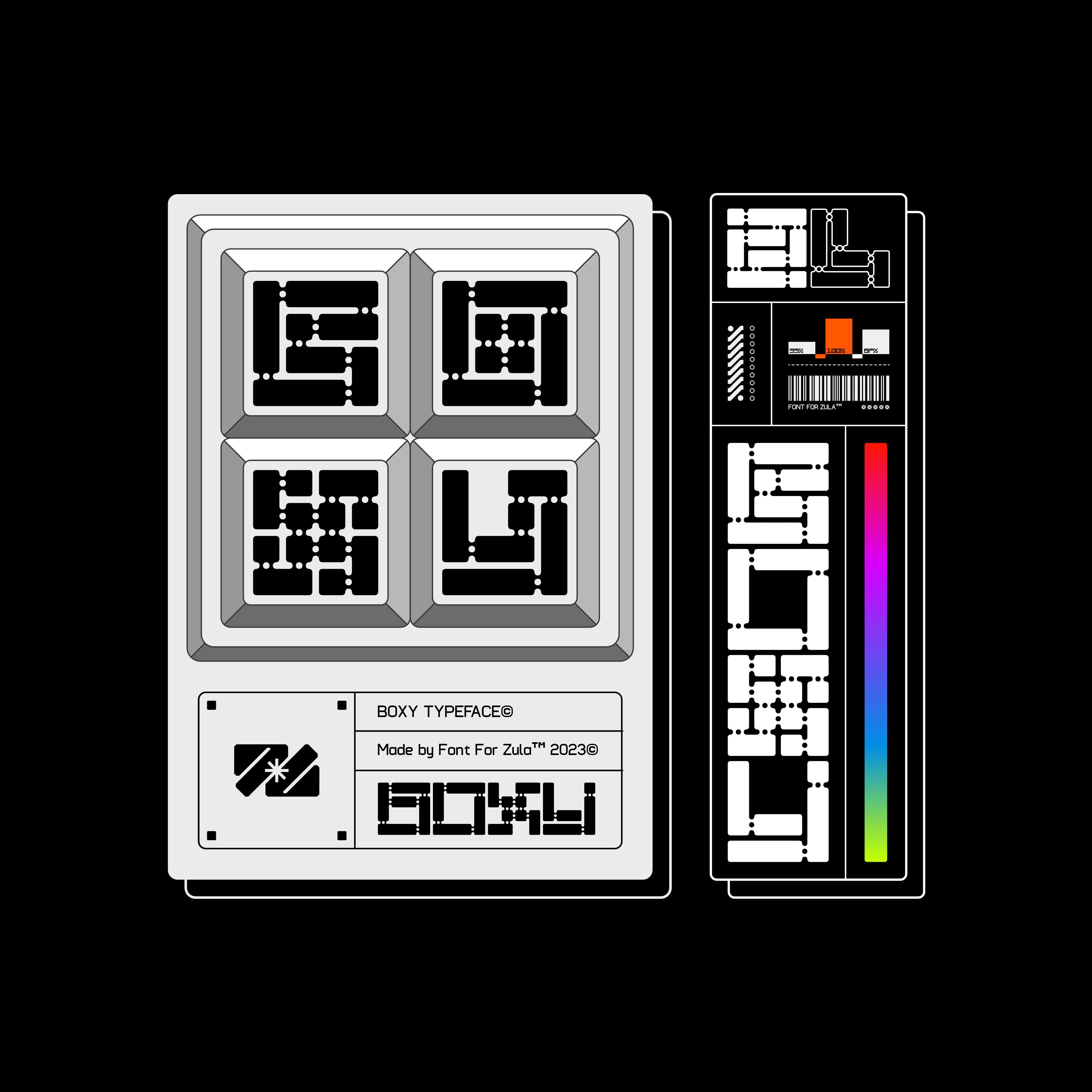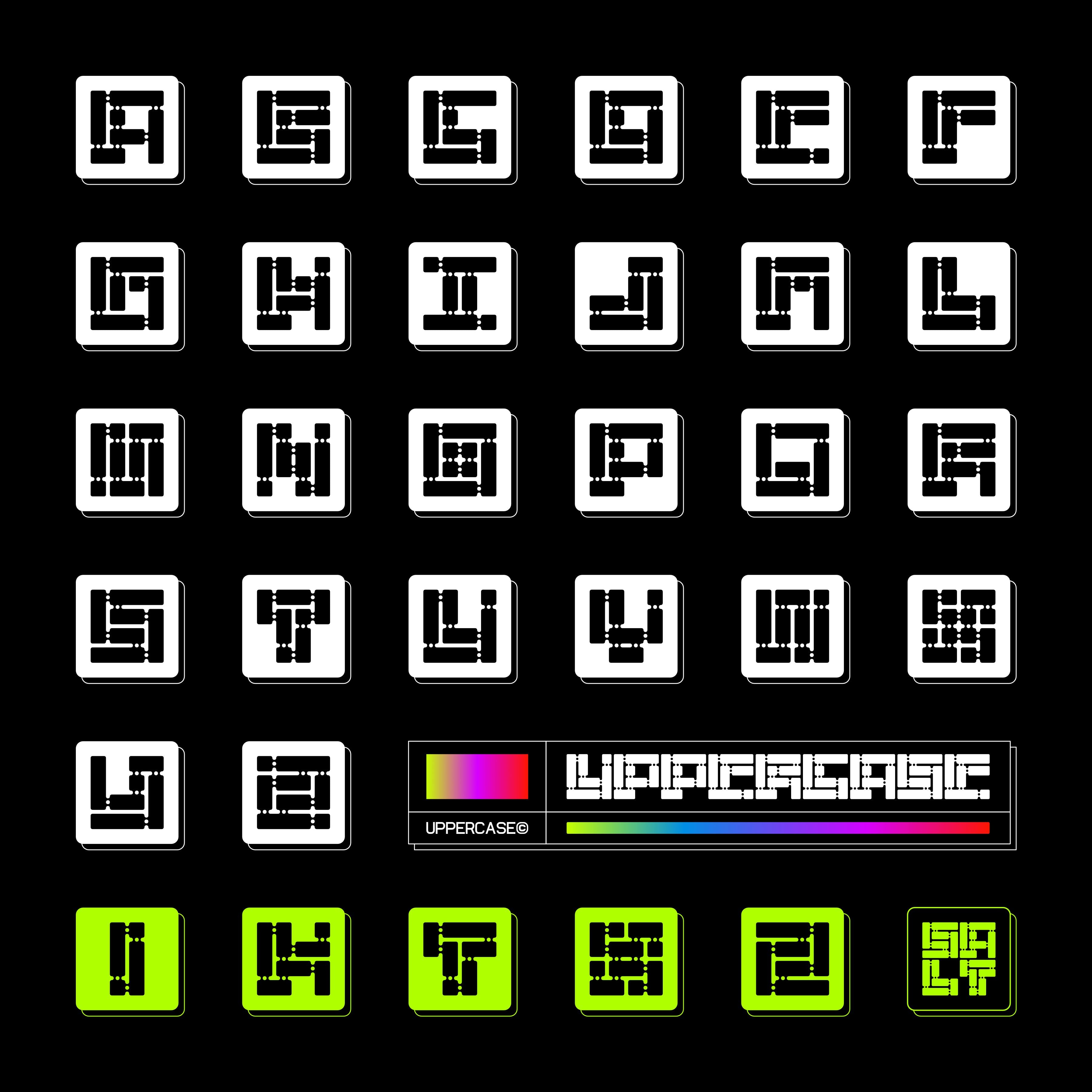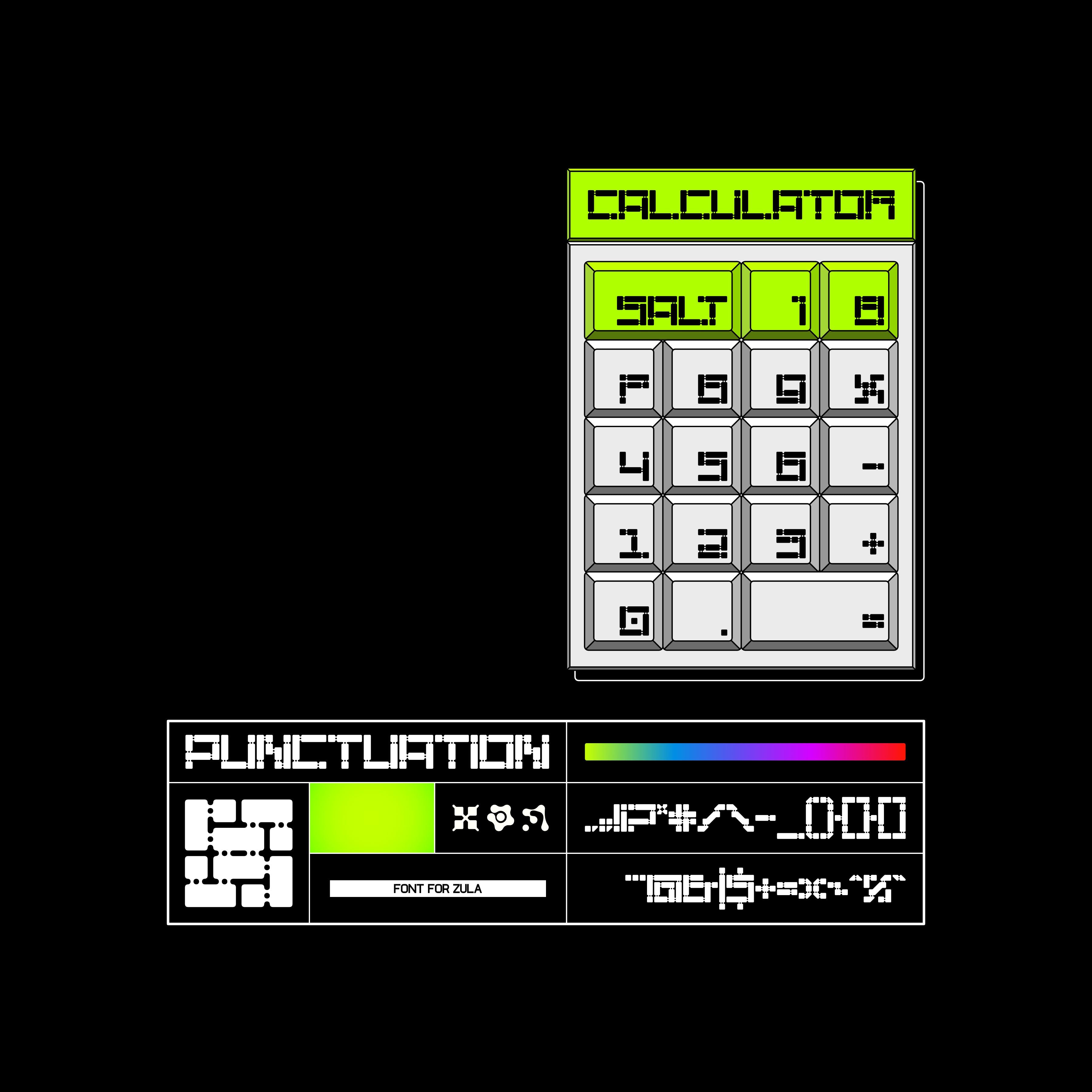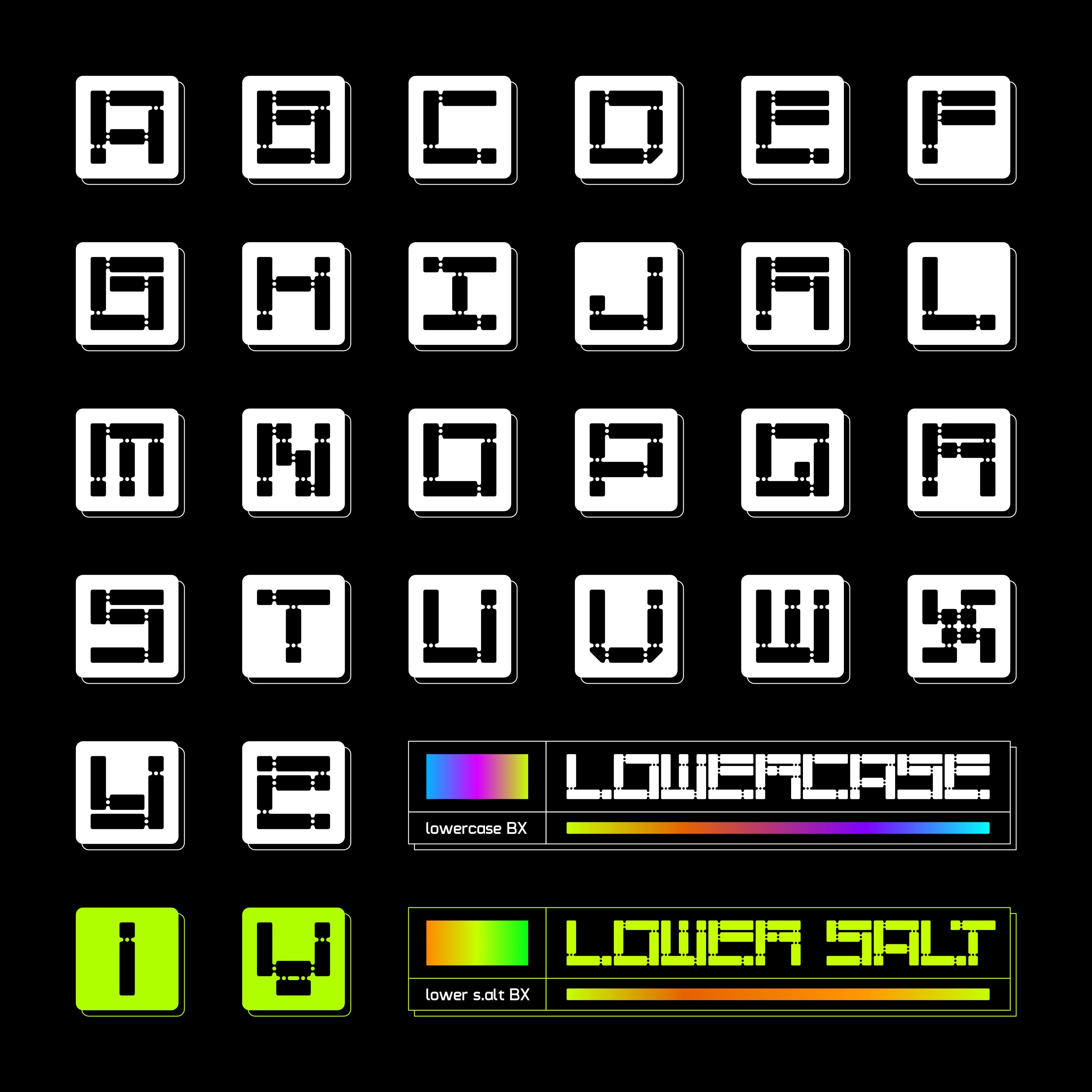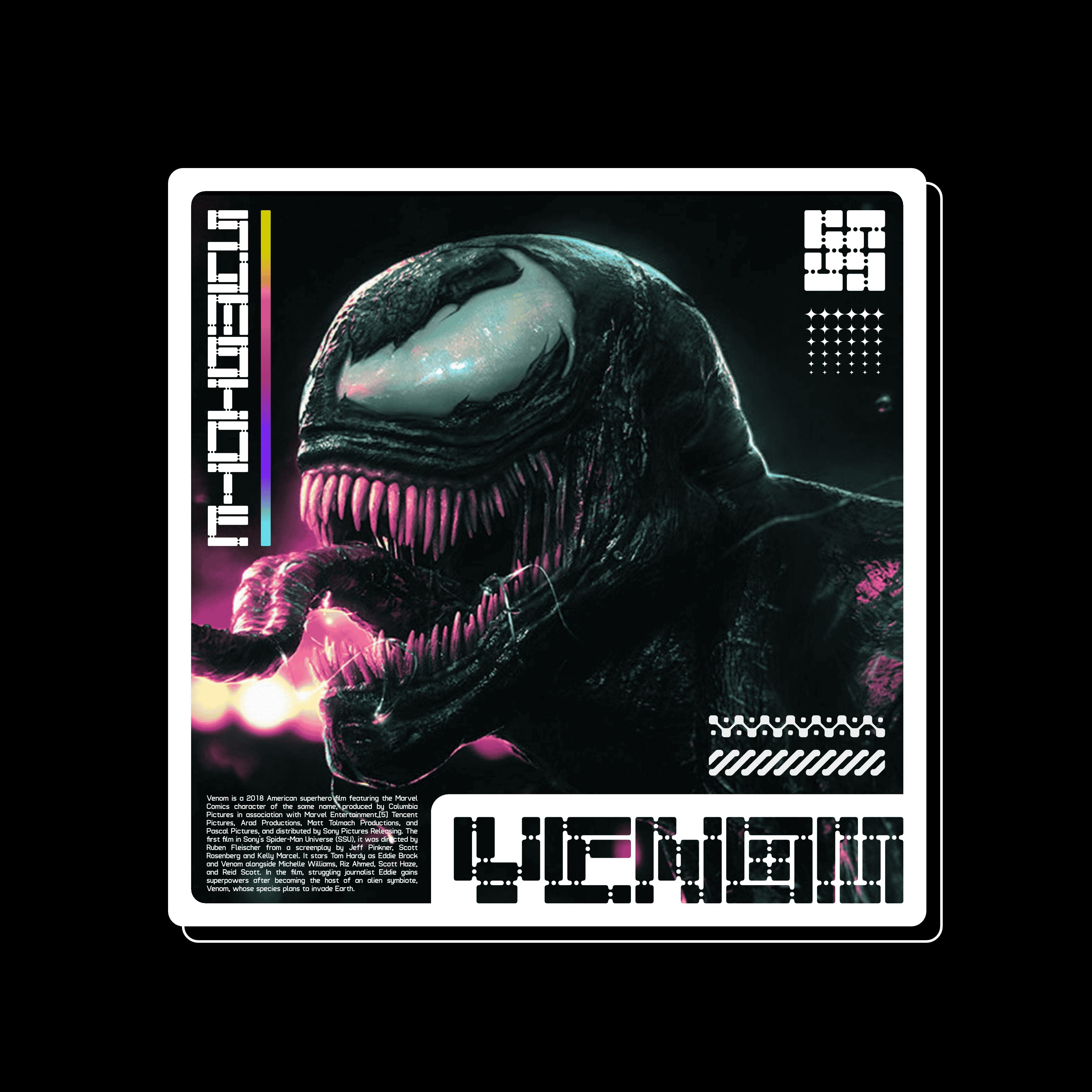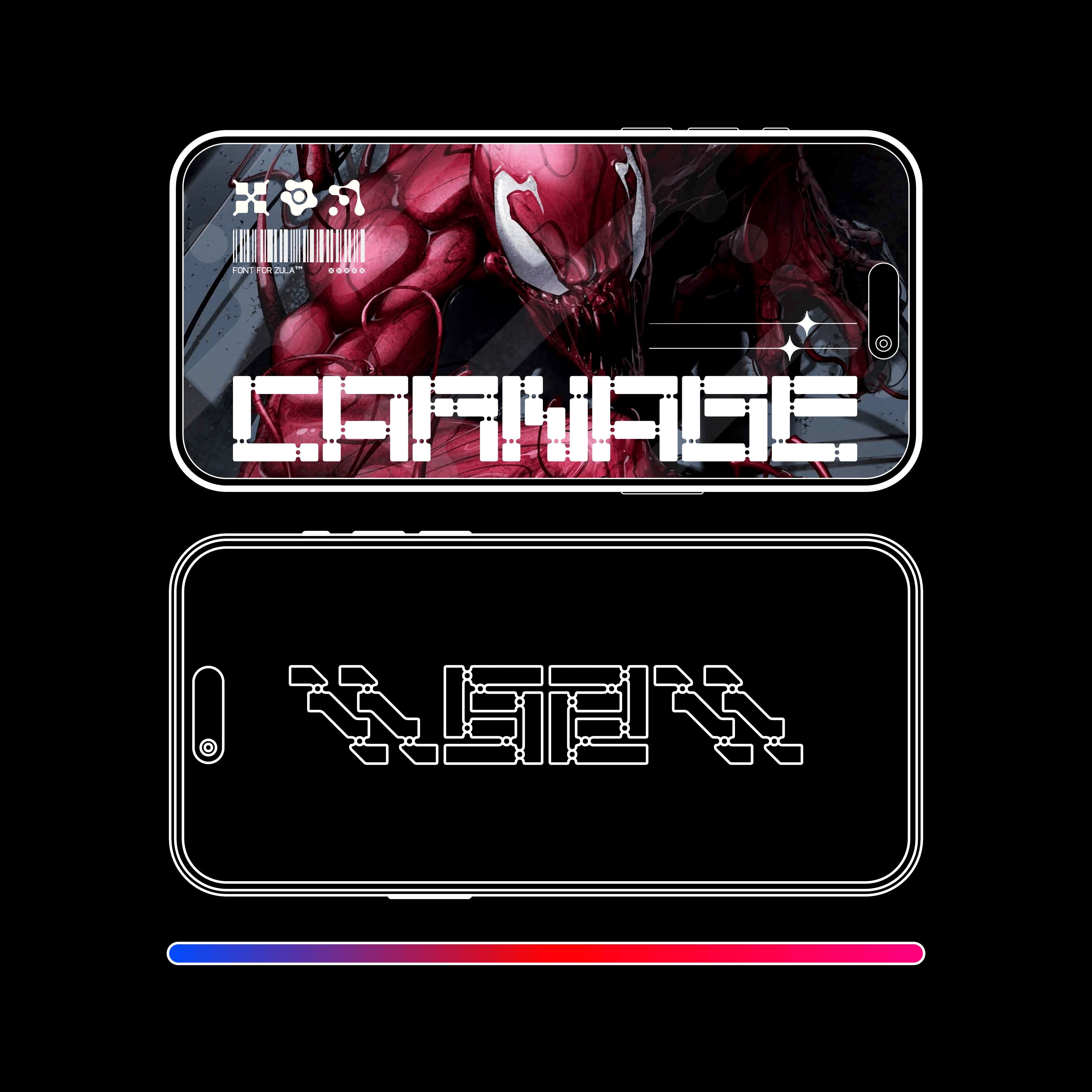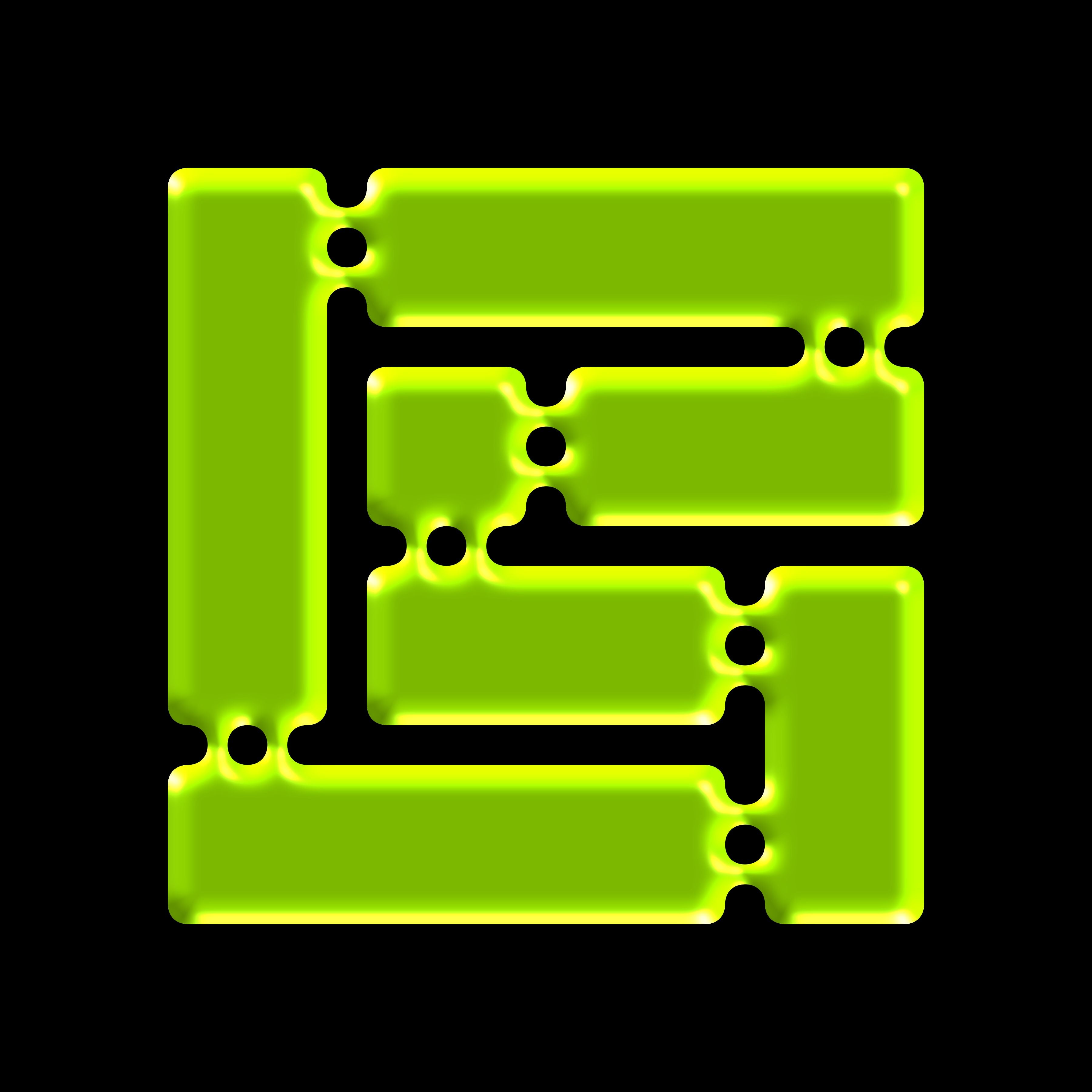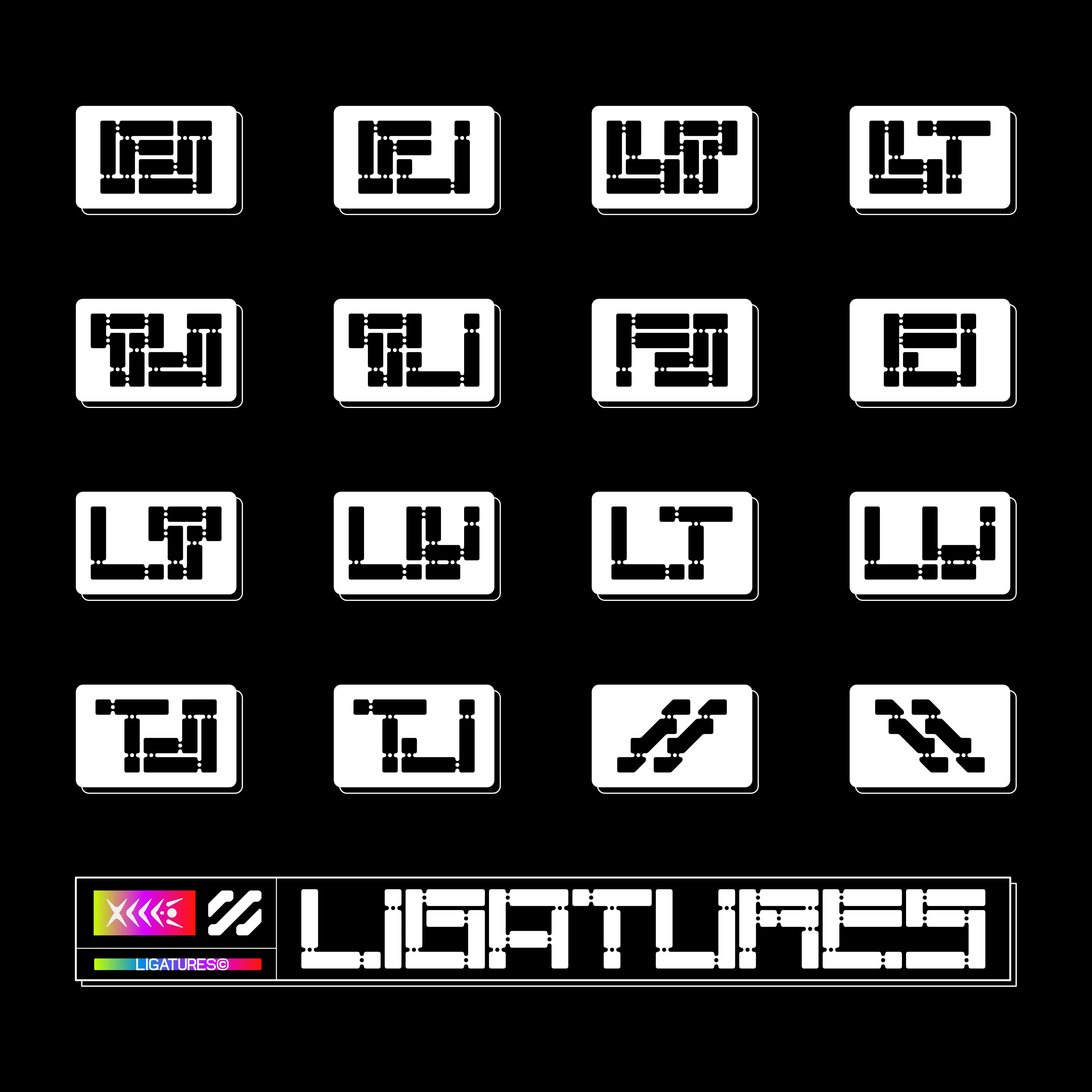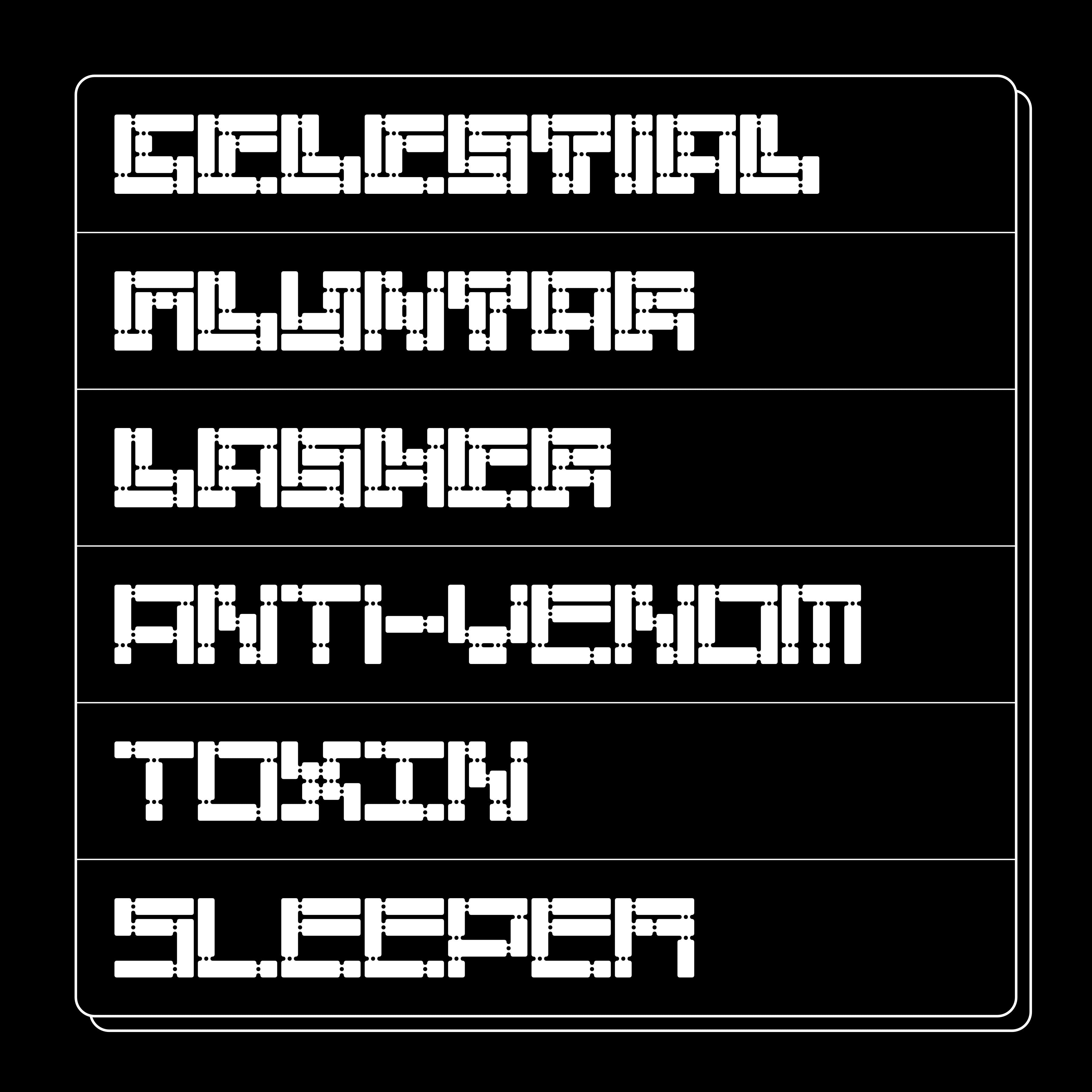
BOXY Typeface
Boxy is a typeface that has a square shape as its name suggests, with unique accent joints in its design. Suitable for projects that require unique, monospaced typefaces.
Boxy include :
- 26 Uppercase
- 26 Lowercase
- 7 Stylistic Alternates
- 10 Numeral
- 2 Numeral Alternates
- 16 Ligatures
- Punctuation
The BOXY Typeface is a square-shaped, monospaced font featuring unique accent joints. It includes OTF, TTF, and WOFF formats, a range of uppercase and lowercase letters, stylistic and numeral alternatives, ligatures, and punctuation.